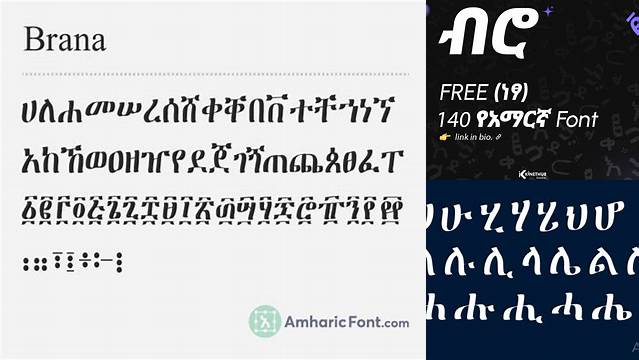
Amharic Fonts: Download Guide & Tips
Are you looking to spice up your documents, website, or creative projects with the unique beauty of the Amharic script? Well, you've come to the right place! Finding the best Amharic fonts can be a game-changer, adding a touch of Ethiopian flair and cultural richness to your work. This guide is your go-to resource for discovering and downloading top-notch Amharic fonts. We'll dive into everything from understanding the basics of Amharic typography to where you can find these amazing fonts and how to use them effectively. So, let's get started, shall we?
Why Choose Amharic Fonts? The Power of Ethiopian Script
Amharic, the official language of Ethiopia, boasts a beautiful and intricate script that's a visual treat. Choosing the right Amharic font isn't just about aesthetics; it's about respecting and celebrating a rich cultural heritage. When you incorporate Amharic fonts into your designs, you're not just adding text; you're telling a story, connecting with a community, and showcasing your appreciation for diversity. The Amharic script, also known as Ge'ez script, has a unique charm that sets it apart from other writing systems. Each character is meticulously crafted, creating a sense of elegance and sophistication. It's a fantastic way to make your work stand out and grab people's attention. Whether you're designing a website, creating marketing materials, or simply writing a personal letter, using Amharic fonts can add a special touch that words alone can't capture. Think about the possibilities! You can create eye-catching logos, stunning social media graphics, or even stylish invitations that reflect the beauty of Ethiopian culture. Plus, by using Amharic fonts, you're helping to promote the language and its rich history. It's a win-win situation, where you can express your creativity and celebrate cultural diversity at the same time. So, get ready to explore the exciting world of Amharic typography!
Choosing the right Amharic font goes beyond mere aesthetics. It's about respecting and celebrating the rich cultural heritage of Ethiopia. Every stroke, curve, and flourish of the Amharic script carries a story. When you integrate these fonts into your designs, you're not just presenting text; you're narrating a tale, forging a connection with a vibrant community, and expressing your appreciation for diversity. This script, often called Ge'ez, possesses a unique allure that distinguishes it from other writing systems. It's an invitation to a world of visual elegance and sophistication. This is precisely what you need to make your work stand out and seize attention. The potential is endless! You can design captivating logos, visually stunning social media graphics, or even stylish invitations that mirror the beauty of Ethiopian culture. Furthermore, by embracing Amharic fonts, you're contributing to the promotion of the language and its profound history, creating a situation where both your creative ambitions and the celebration of cultural diversity can thrive. Now, let's embark on an exciting journey into the realm of Amharic typography.
Finding your ideal Amharic font can seem daunting at first, but it's actually quite a straightforward process. First, establish where you intend to utilize the font. Will it be for a website, a presentation, or printed materials? Recognizing your intended application assists in narrowing down your options. Next, assess the aesthetic. Do you prefer a formal, modern, or traditional appearance? Consider the tone you wish to convey through your design. Do you want to inject a sense of playfulness, professionalism, or creativity? Once you've established these elements, it's time to explore the numerous online resources. Google Fonts is an outstanding starting point. Though its selection of Amharic fonts may be restricted, you can still uncover dependable, freely available choices. Additional websites to investigate include specific font foundries and design marketplaces. These platforms frequently showcase a wider variety of Amharic fonts, encompassing special and professionally designed choices. Before you commence downloading, be sure to examine the licensing terms. Some fonts are freely available for personal use but necessitate a license for commercial projects. Other fonts could be completely free for both personal and commercial use, so always peruse the fine print to sidestep any legal complications. Also, download fonts exclusively from trustworthy sources to prevent any malware or security threats. Finally, consider the readability of the font. Ensure that it is easily readable, particularly in smaller sizes or for longer texts. This is crucial when choosing the perfect font for your specific needs.